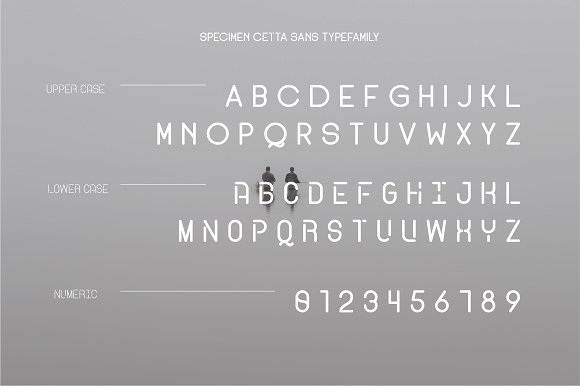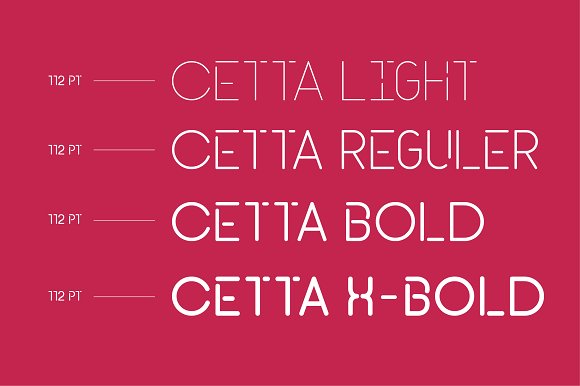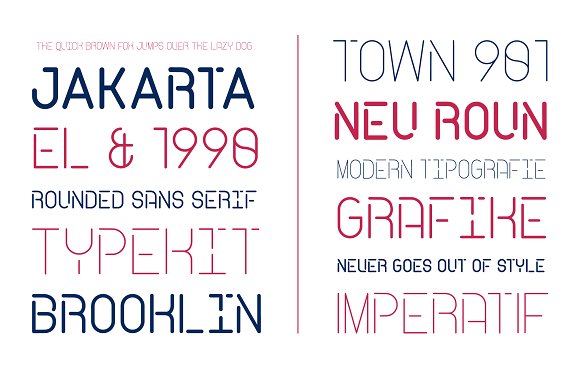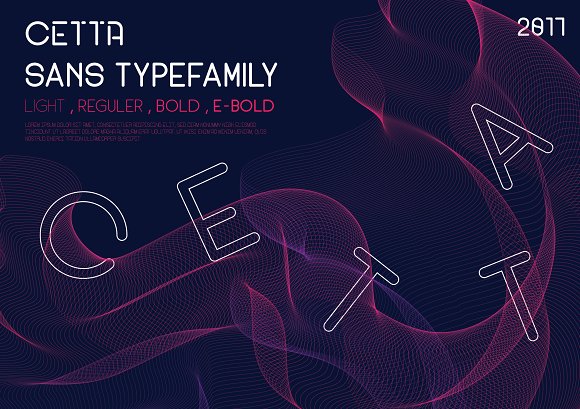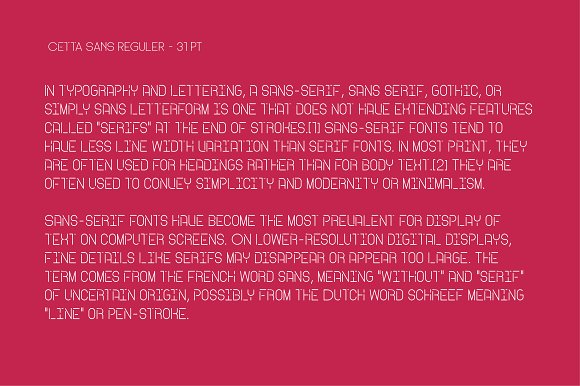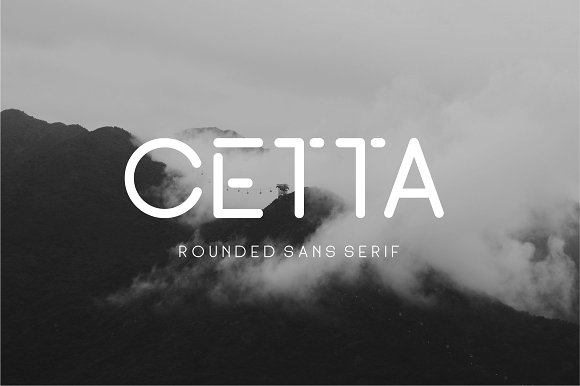
Cetta Sans Typefamily
Cetta Sans serif type family is a rounded sans serif letter that looks very clean, simple but very modern. Cetta Sans serif type family consists of a typeface; Light, regular, bold and x-bold. This letter can be used for various needs such as headline, mashead, logotype etc.